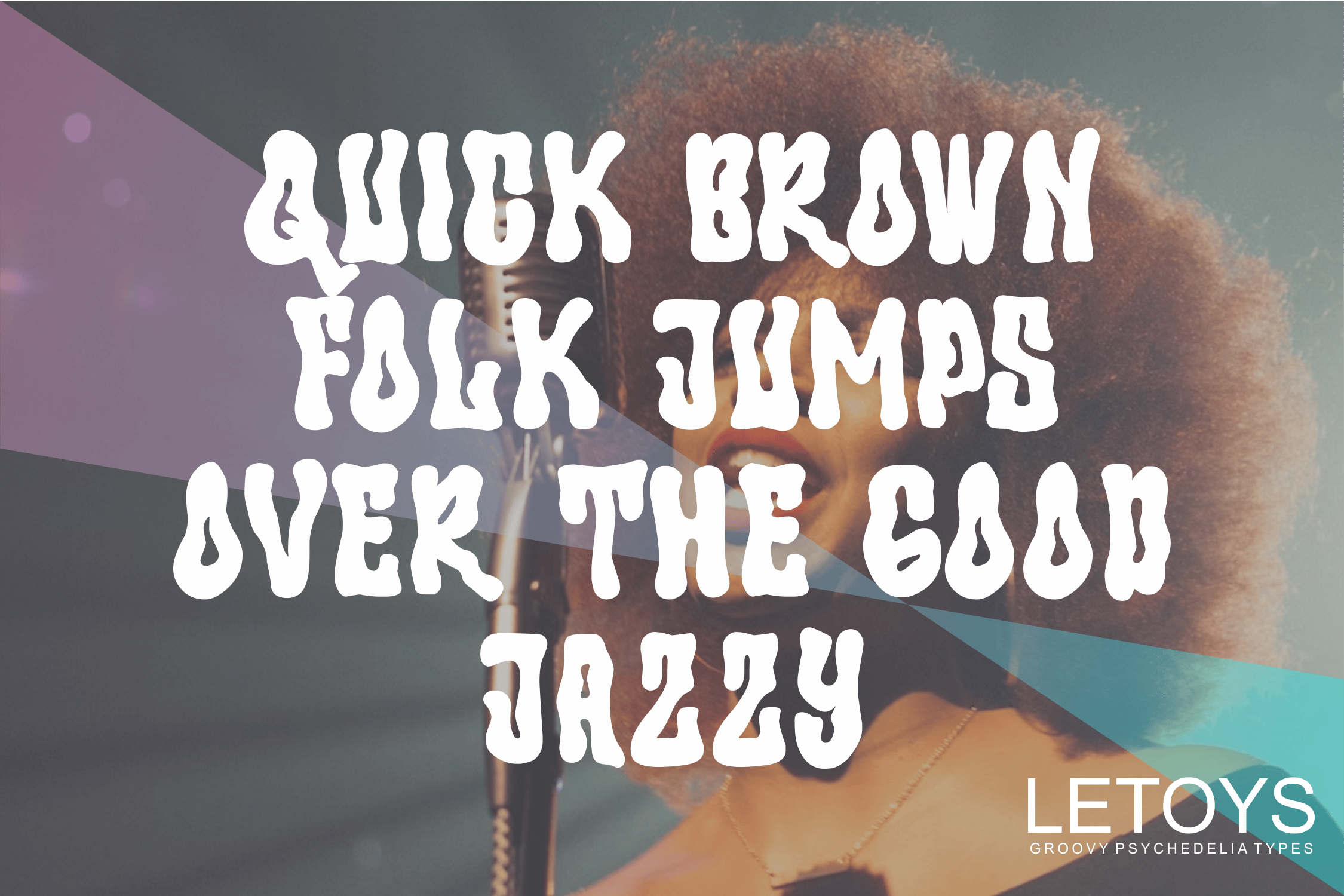
**Letoys** are inspired by 70s typography with a touch of psychedelic and retro vibes. This type is perfect for creating posters, magazine layouts, brand logos, sleeve covers, party flyers, quotes, or simply as a stylish text overlay on any background image.
What’s Included?
* Uppercase & Lowercase
* Numbers & Punctuation
* Ligature Bonus
* Multilingual Support